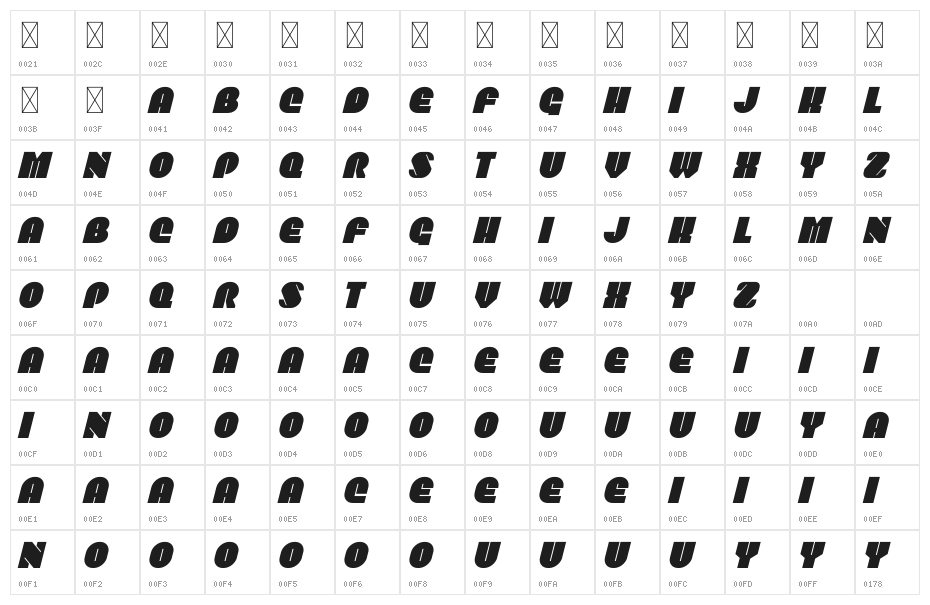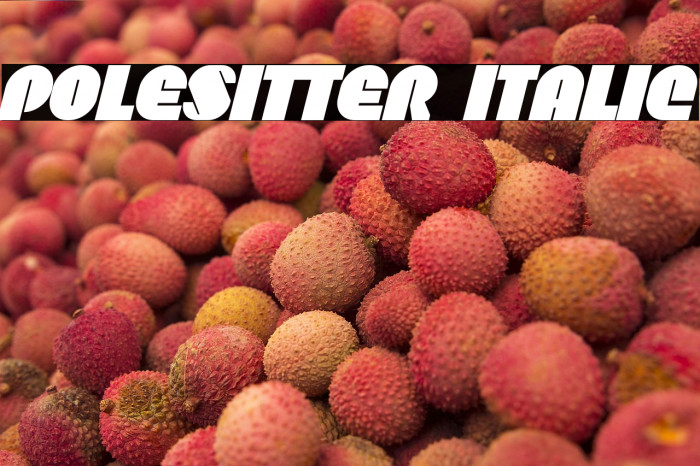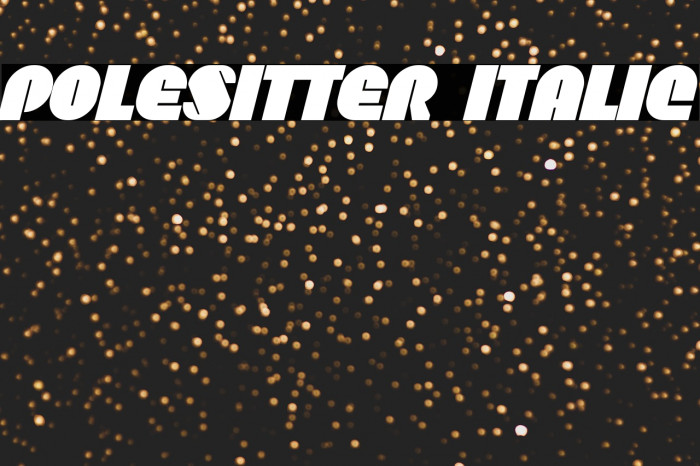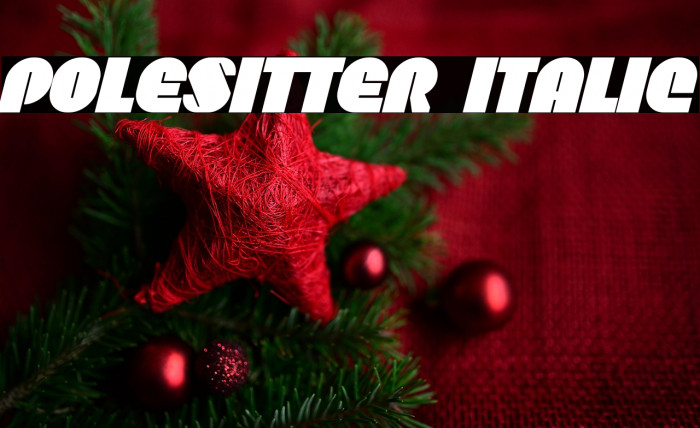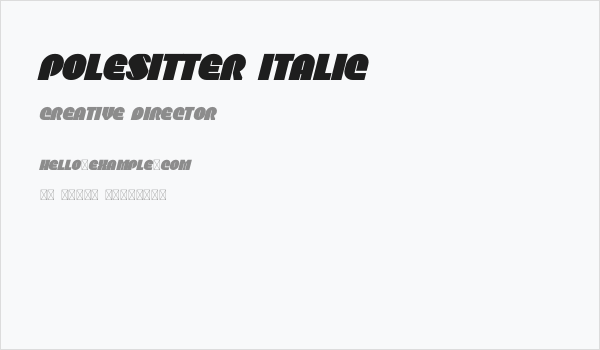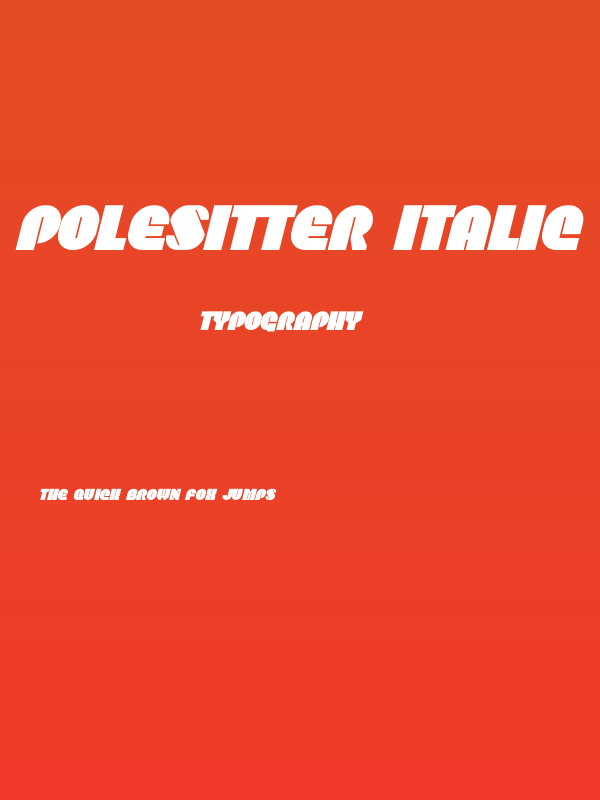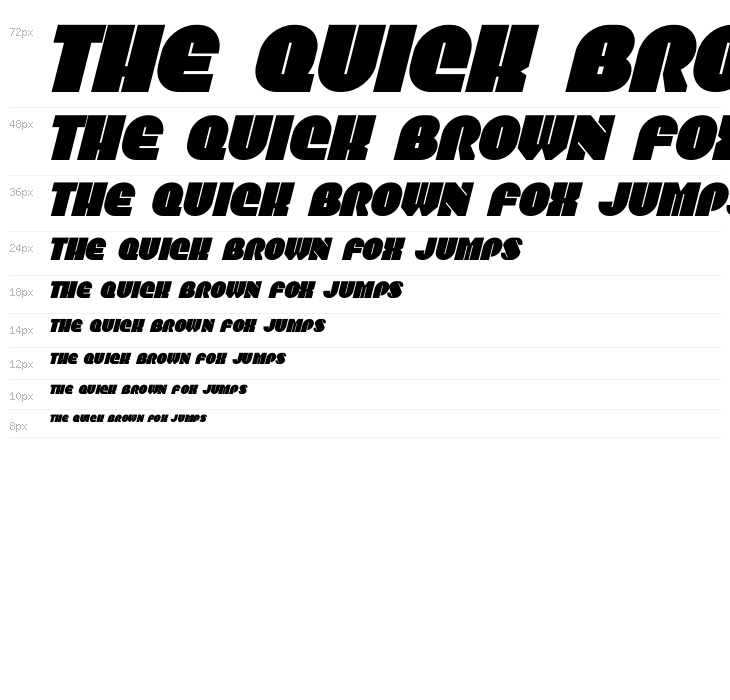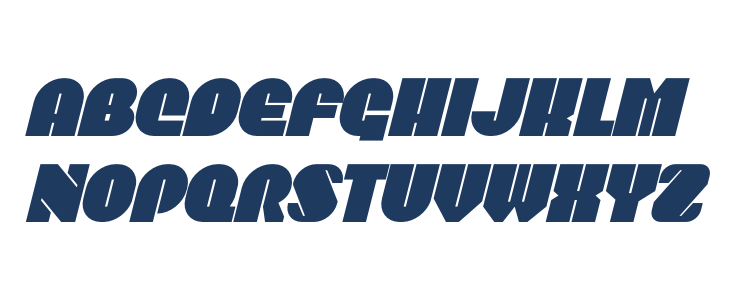
Polesitter Italic Font
Polesitter Italic Description
This font features a bold, italicized style with a strong, dynamic presence. The characters are designed with a forward-leaning slant, giving a sense of motion and speed. The strokes are thick and consistent, providing a robust and impactful appearance. The uppercase letters are particularly striking, with sharp angles and a geometric influence that enhances their modern aesthetic. The font's overall design is clean and uncluttered, making it suitable for attention-grabbing headlines and titles. Its unique style is both contemporary and versatile, ideal for projects that require a bold statement.
| Proposed Projects | Ideal for use in sports branding, automotive advertisements, dynamic posters, and modern web design. |